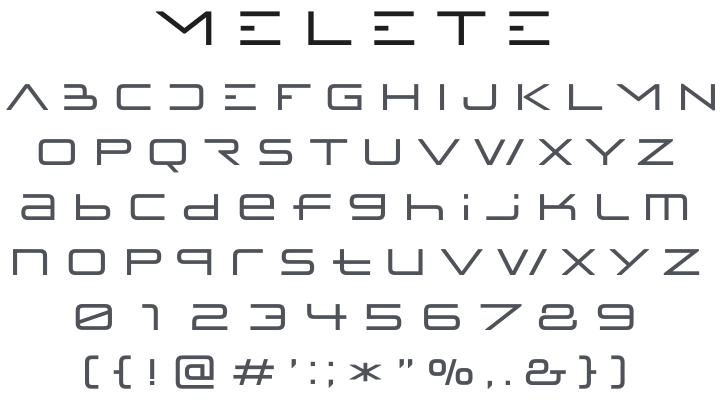
Melete Font Family
by dot colon
Melete Font Family
About Melete
Melete is a sans-serif typeface designed to evoke the atmosphere of sci-fi movie titles. While slightly sacrificing readability, it features generous spacing to create a futuristic feel.